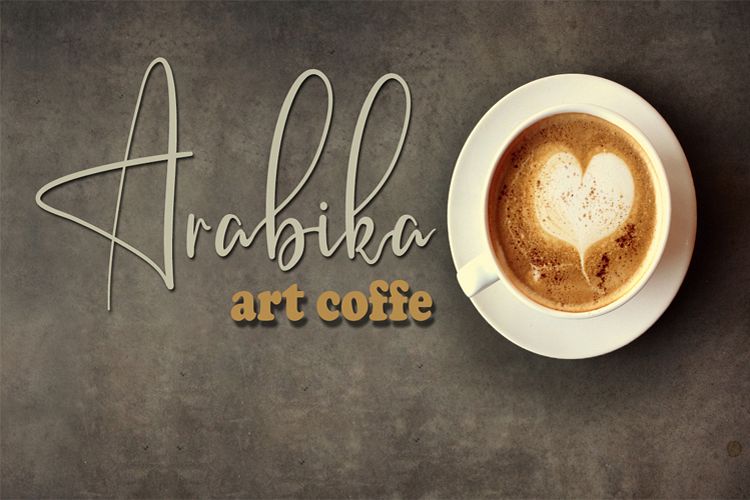
Arabika Art Coffe Signature Font
The best free fonts package today is a signature fonts! Introducing Cattalonia Font! It is designed and shared by  Stripline co. The Cattalonia is a signature typeface with natural curves and shapes. It can be used for various purposes such as: watermarks, branding, logos, and much more!